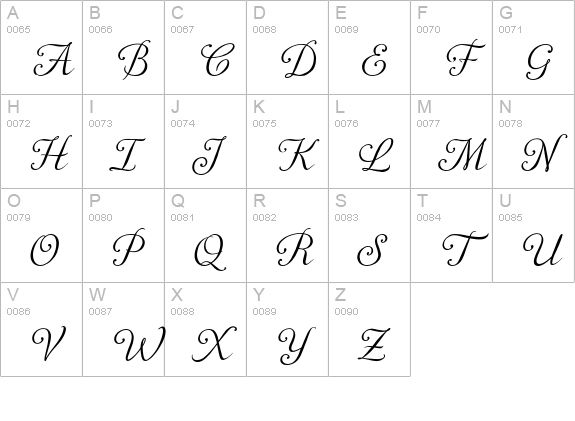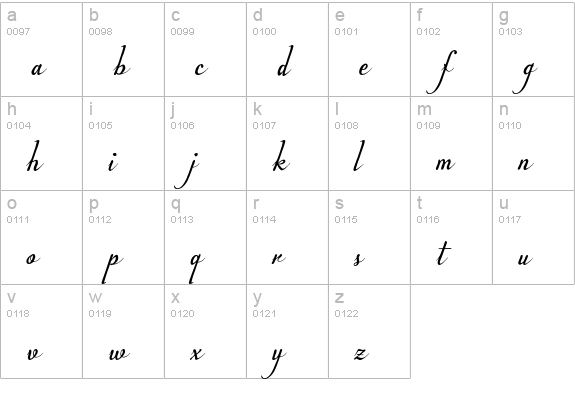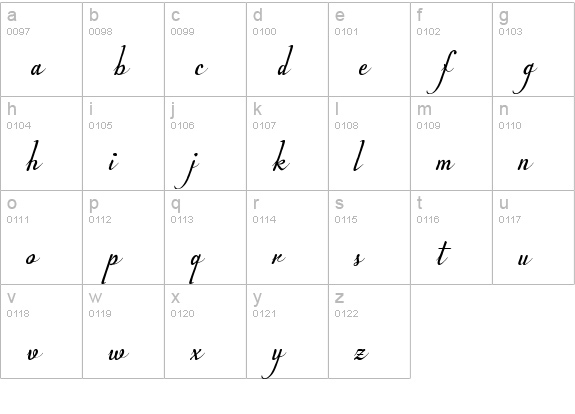
Plebeya 2 is a stylish and elegant font that exudes sophistication and modernity. With its sleek lines and delicate curves, this font is perfect for a wide range of design projects, from branding to editorial layouts. The clean and minimalist design of Plebeya 2 makes it versatile and easy to use, adding a touch of refinement to any project. The best part about Plebeya 2 font is that it is completely free to download at FontsMarket.com. This means you can access this high-quality font without any cost, making it a valuable addition to your design toolkit. Whether you're working on a professional project or a personal creative endeavor, Plebeya 2 font will elevate your designs and help you stand out from the crowd. Don't miss out on the opportunity to enhance your design projects with Plebeya 2 font. Download it for free today at FontsMarket.com and start creating stunning visuals that leave a lasting impression.